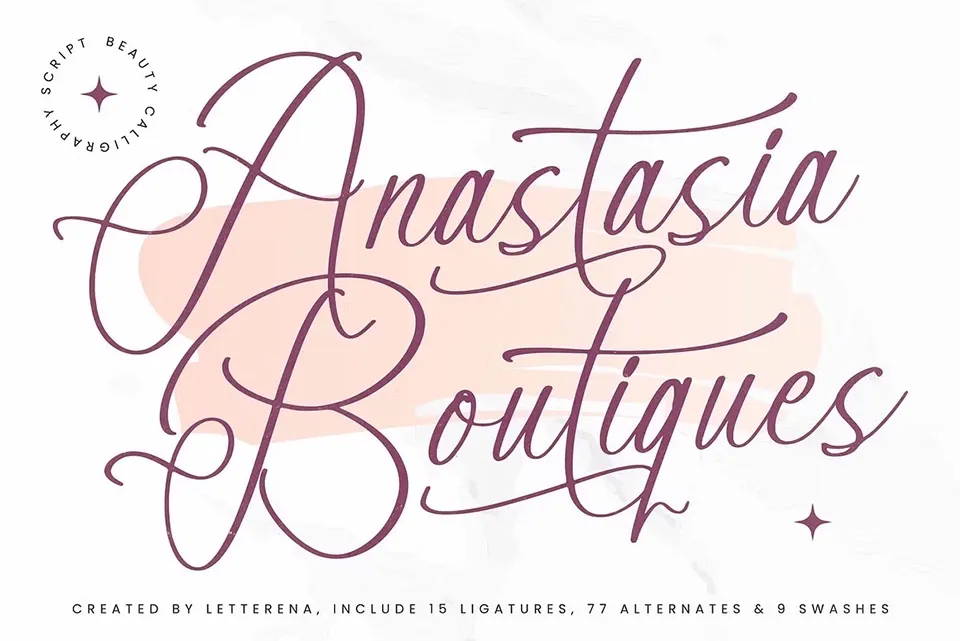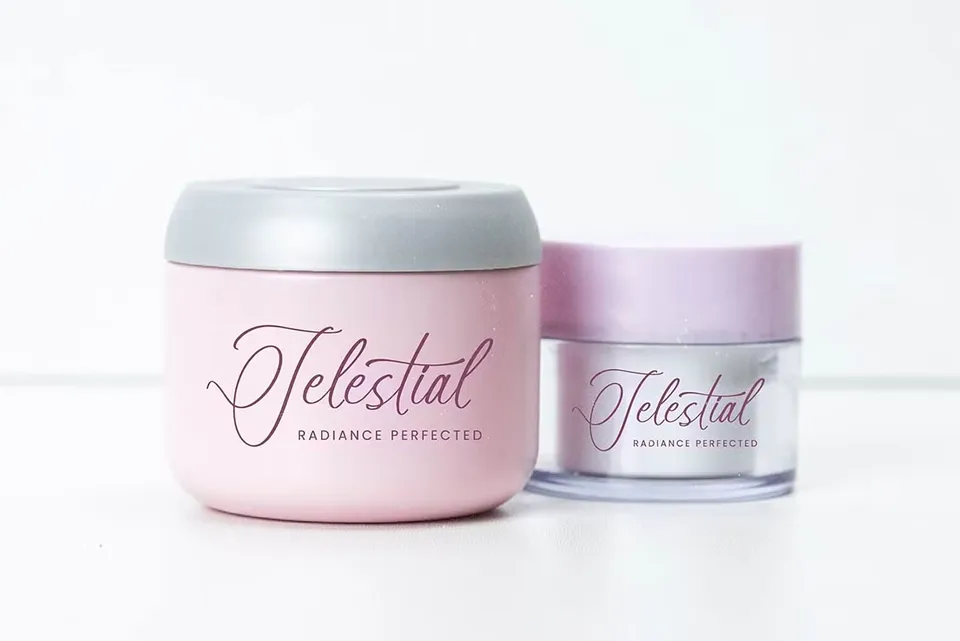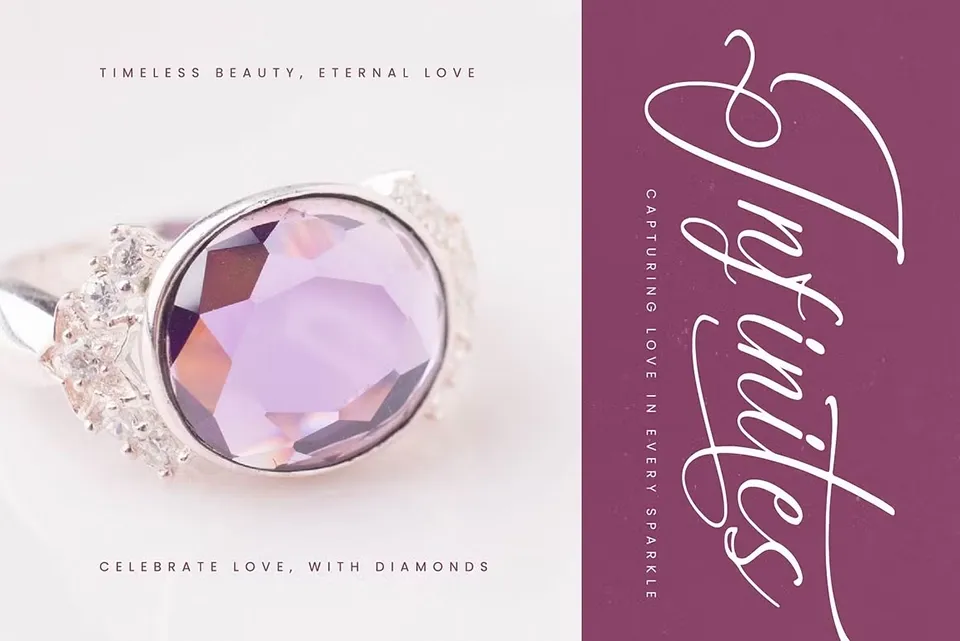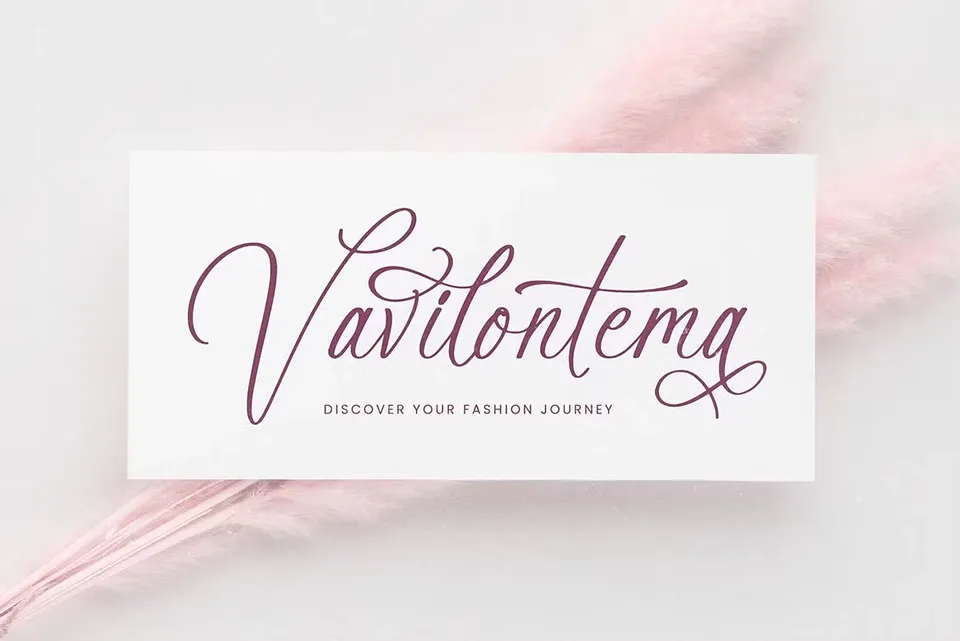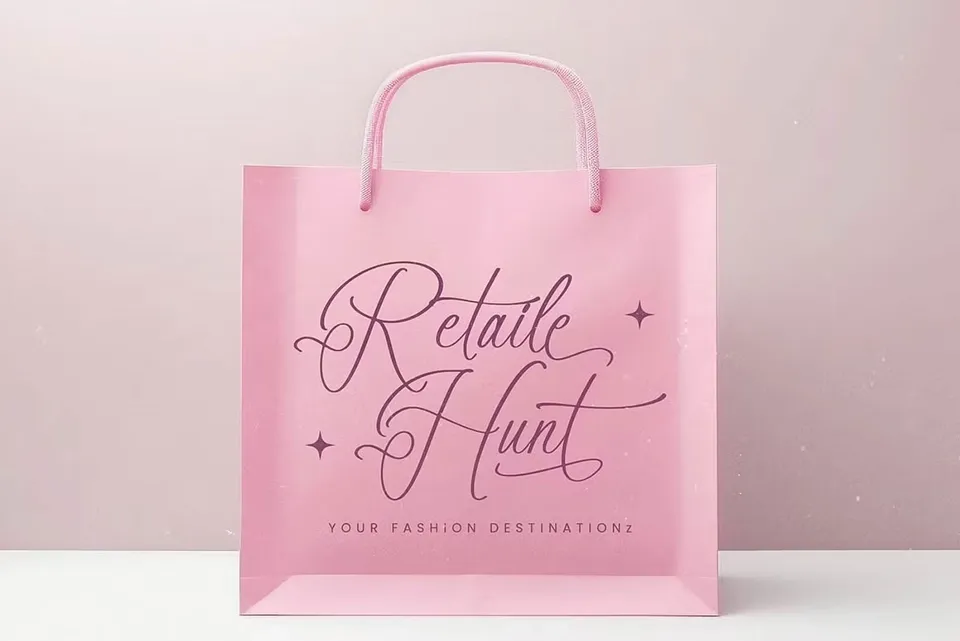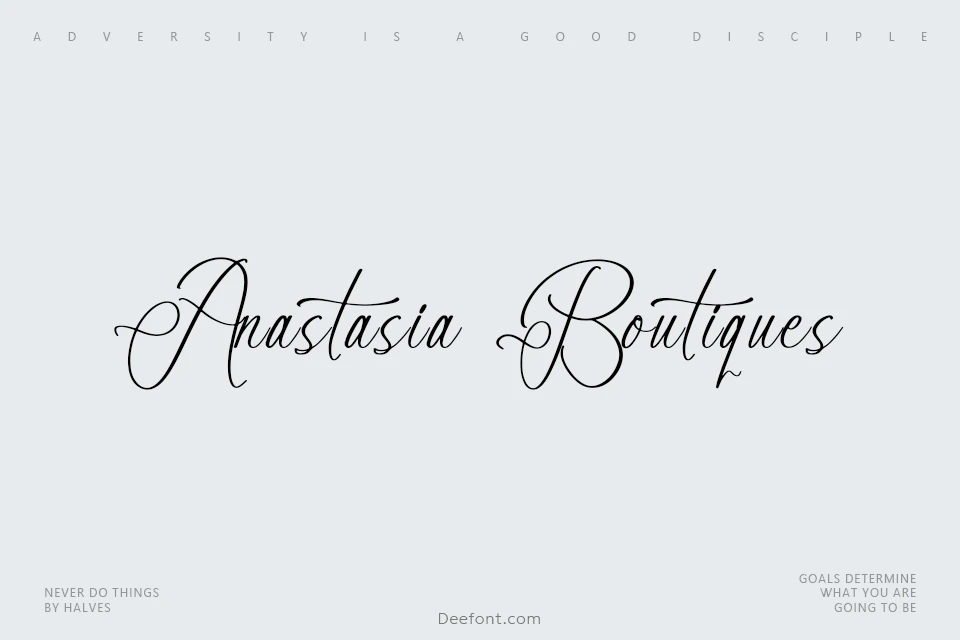
Anastasia Boutiques Font
Anastasia Boutiques Font is a luxury calligraphy script font designed for elegant and creative projects. With its beautiful ligatures, alternates, and swashes, this font is perfect for logos, branding, packaging, homeware, quotes, posters, and more. Its refined curves and stylish details add a touch of sophistication and charm to any design, making it an excellent choice for those seeking a blend of beauty and versatility in their typography.